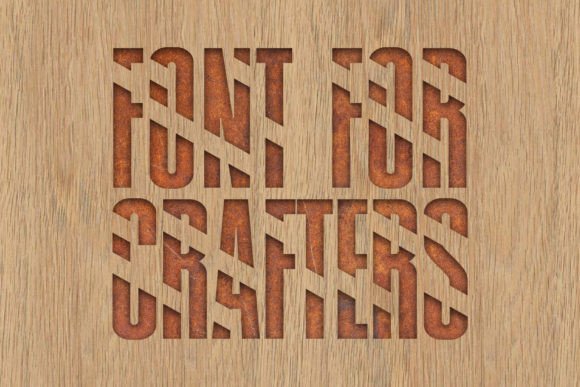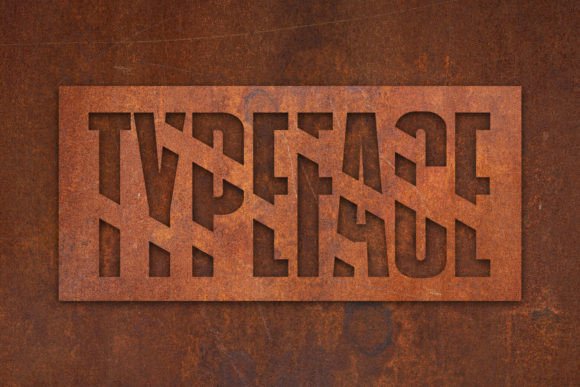
Candy Cut Font: The Ultimate Choice for Laser and Paper Cutting Projects
Are you a designer or crafter looking for a font that can elevate your laser and paper cutting projects? Look no further than the Candy Cut Font. This special font is designed specifically for cutting, making it perfect for craft projects like signs, stencils, or cards. In this article, we’ll explore the features and benefits of the Candy Cut Font and why it’s a must-have for any serious crafter or designer.
What is Candy Cut Font?
Candy Cut Font is a unique font designed with laser and paper cutting in mind. Its letters are condensed, bold, and easy to cut out, with smooth edges and clear shapes. The font’s strong design ensures that it stays together well when cut, making it perfect for intricate designs and detailed projects.
Key Features of Candy Cut Font
- Condensed and Bold Letters: The Candy Cut Font features condensed and bold letters that are easy to cut out and perfect for creating eye-catching designs.
- Smooth Edges and Clear Shapes: The font’s smooth edges and clear shapes make it easy to cut out intricate designs and details.
- Strong Design: The font’s strong design ensures that it stays together well when cut, making it perfect for delicate and intricate projects.
Benefits of Using Candy Cut Font
So why choose the Candy Cut Font for your laser and paper cutting projects? Here are just a few benefits of using this amazing font:
- Ease of Use: The Candy Cut Font is easy to use and cuts out smoothly, making it perfect for crafters of all skill levels.
- Versatility: The font’s bold and condensed design makes it perfect for a wide range of projects, from signs and stencils to cards and decorations.
- Professional Results: With the Candy Cut Font, you can achieve professional-looking results without the need for extensive design experience.
Tips for Using Candy Cut Font
Here are a few tips for getting the most out of the Candy Cut Font:
- Choose the Right Material: The Candy Cut Font is designed for use with laser and paper cutting, so choose a material that works well with these techniques, such as cardstock or paper.
- Adjust Font Size: Experiment with different font sizes to achieve the desired effect for your project.
- Combine with Other Fonts: The Candy Cut Font can be combined with other fonts to create unique and eye-catching designs.
Project Ideas Using Candy Cut Font
The Candy Cut Font is perfect for a wide range of projects, including:
- Signs: Create eye-catching signs for parties, events, or businesses using the Candy Cut Font.
- Stencils: Use the Candy Cut Font to create custom stencils for painting or drawing.
- Cards: Add a personal touch to your cards and invitations with the Candy Cut Font.
- Decorations: Create custom decorations for parties, events, or everyday use with the Candy Cut Font.
In conclusion, the Candy Cut Font is a must-have for any designer or crafter looking to elevate their laser and paper cutting projects. With its condensed and bold letters, smooth edges, and clear shapes, this font is perfect for creating eye-catching designs and intricate details. Whether you’re a seasoned pro or just starting out, the Candy Cut Font is sure to become a favorite in your design arsenal.